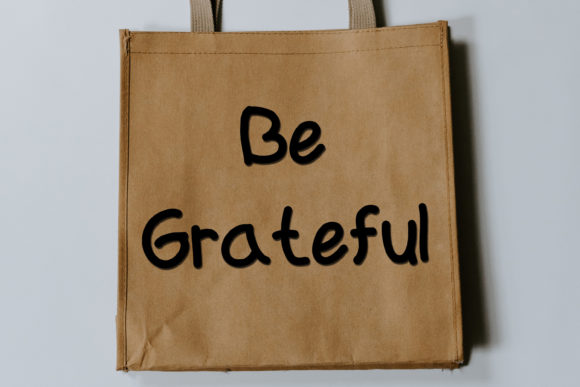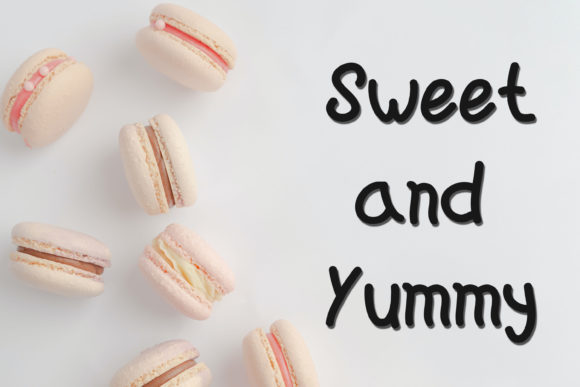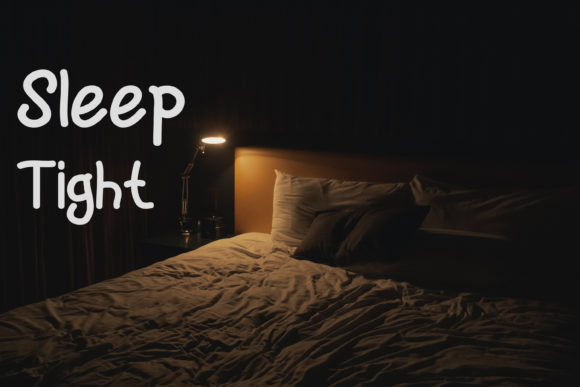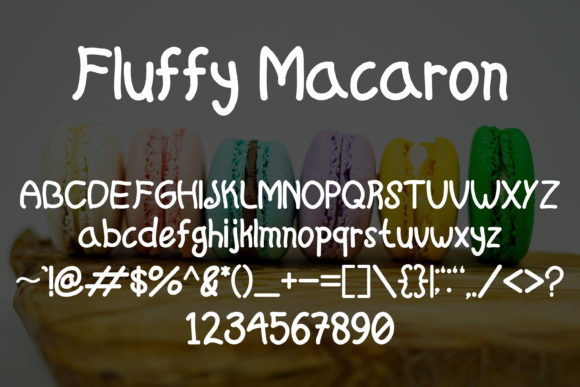
Introducing Fluffy Macaron: The Ultimate Cute and Natural Handwritten Font
Are you tired of using the same old fonts for your creative projects? Look no further! We’re excited to introduce Fluffy Macaron, a charming and natural handwritten font that’s sure to make your designs stand out. In this article, we’ll dive into the world of Fluffy Macaron, exploring its features, uses, and benefits for designers and crafters alike.
What is Fluffy Macaron?
Fluffy Macaron is a delightful handwritten font that’s perfect for adding a touch of whimsy and personality to your projects. With its soft, rounded edges and effortless flow, this font exudes a sense of friendliness and approachability. Whether you’re working on a branding project, crafting a social media graphic, or designing a digital invitation, Fluffy Macaron is the perfect choice for adding a dash of cuteness and charm.
Key Features of Fluffy Macaron
- Cute and Natural Handwritten Style: Fluffy Macaron boasts a unique, handwritten look that’s both playful and elegant.
- High Versatility: This font can be paired with a wide range of projects, from digital designs to print materials, and everything in between.
- Easy to Read: Despite its whimsical nature, Fluffy Macaron remains clear and easy to read, making it perfect for body text and headings.
- Unique Character Set: With a range of characters, including uppercase and lowercase letters, numbers, and punctuation marks, Fluffy Macaron has everything you need to create stunning designs.
Who Can Benefit from Fluffy Macaron?
How to Use Fluffy Macaron in Your Projects
- Pair with Bold Fonts: Combine Fluffy Macaron with bold, sans-serif fonts for a striking contrast.
- Add to Digital Backgrounds: Use Fluffy Macaron to add text to your digital backgrounds, creating stunning visual effects.
- Mix with Patterns: Pair Fluffy Macaron with playful patterns and textures for a unique, eye-catching design.